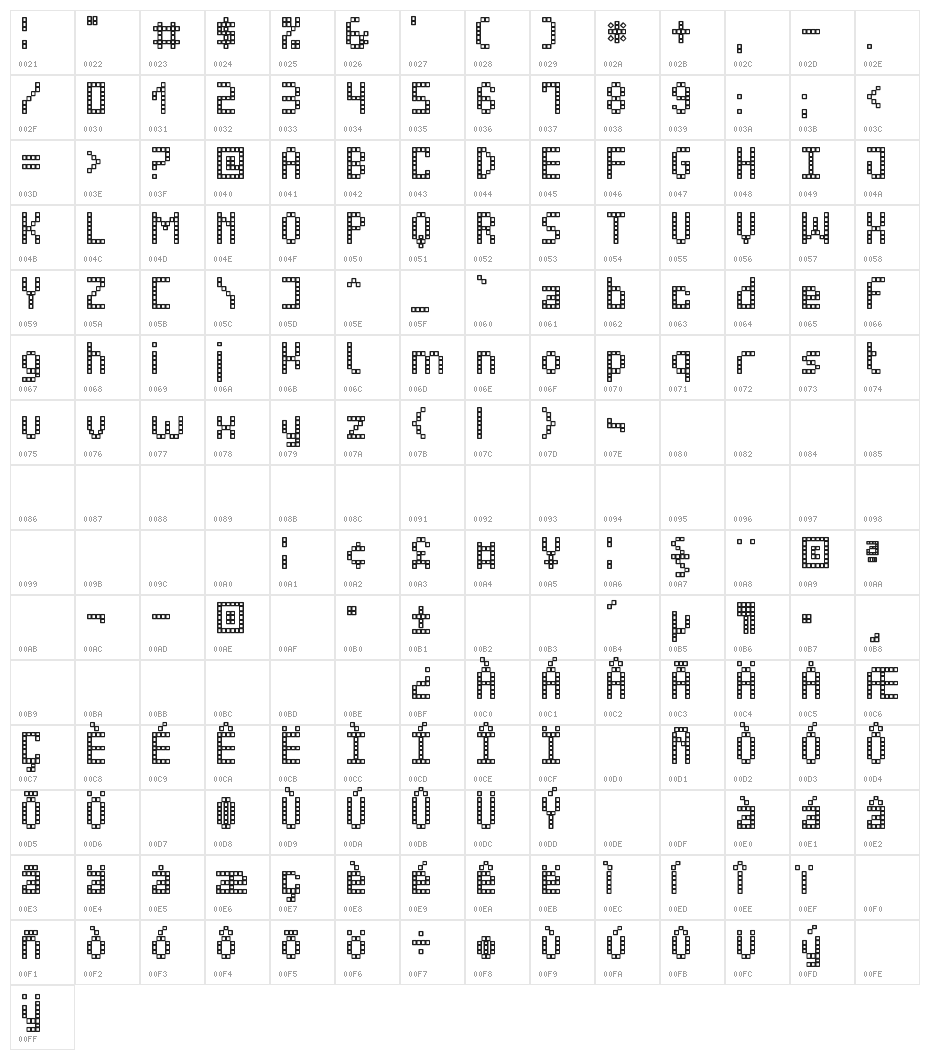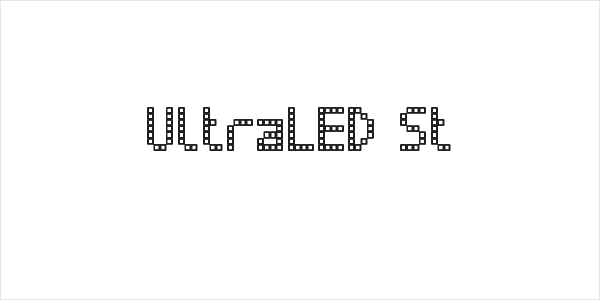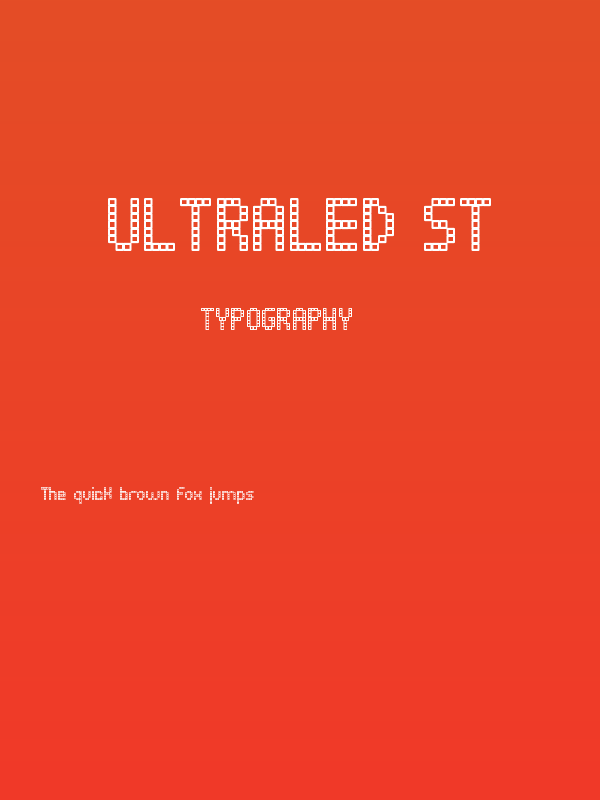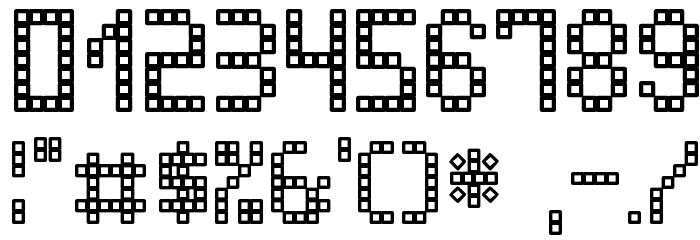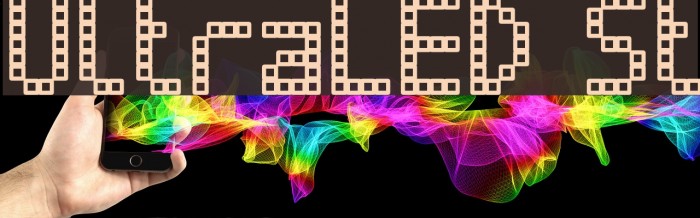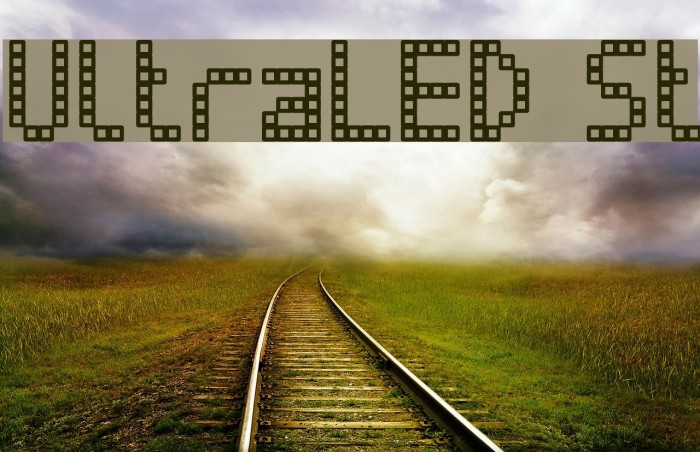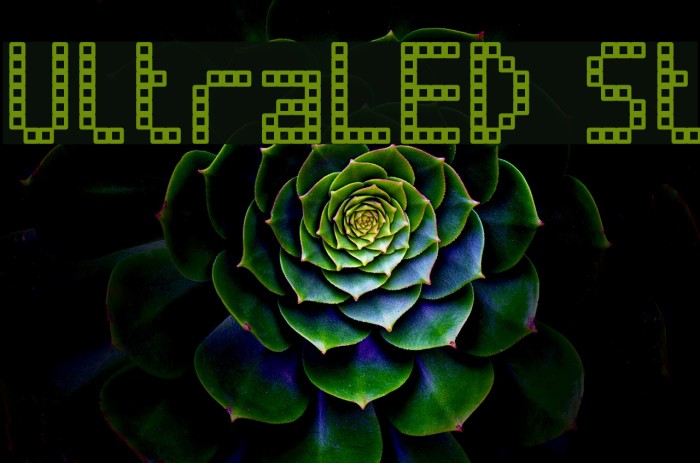
UltraLED St Font
UltraLED St Description
This font features a unique and modern design with a grid-like, pixelated structure. Each character is composed of small square blocks, creating a digital and futuristic appearance. The uniformity in the block size across all characters gives it a cohesive and structured look. The uppercase and lowercase letters maintain a consistent style, while the numerals and special characters complement the overall design. This font is highly distinctive, making it ideal for projects that require a tech-savvy or digital aesthetic.
| Proposed Projects | Ideal for digital displays, tech-themed posters, video game graphics, and futuristic branding. |